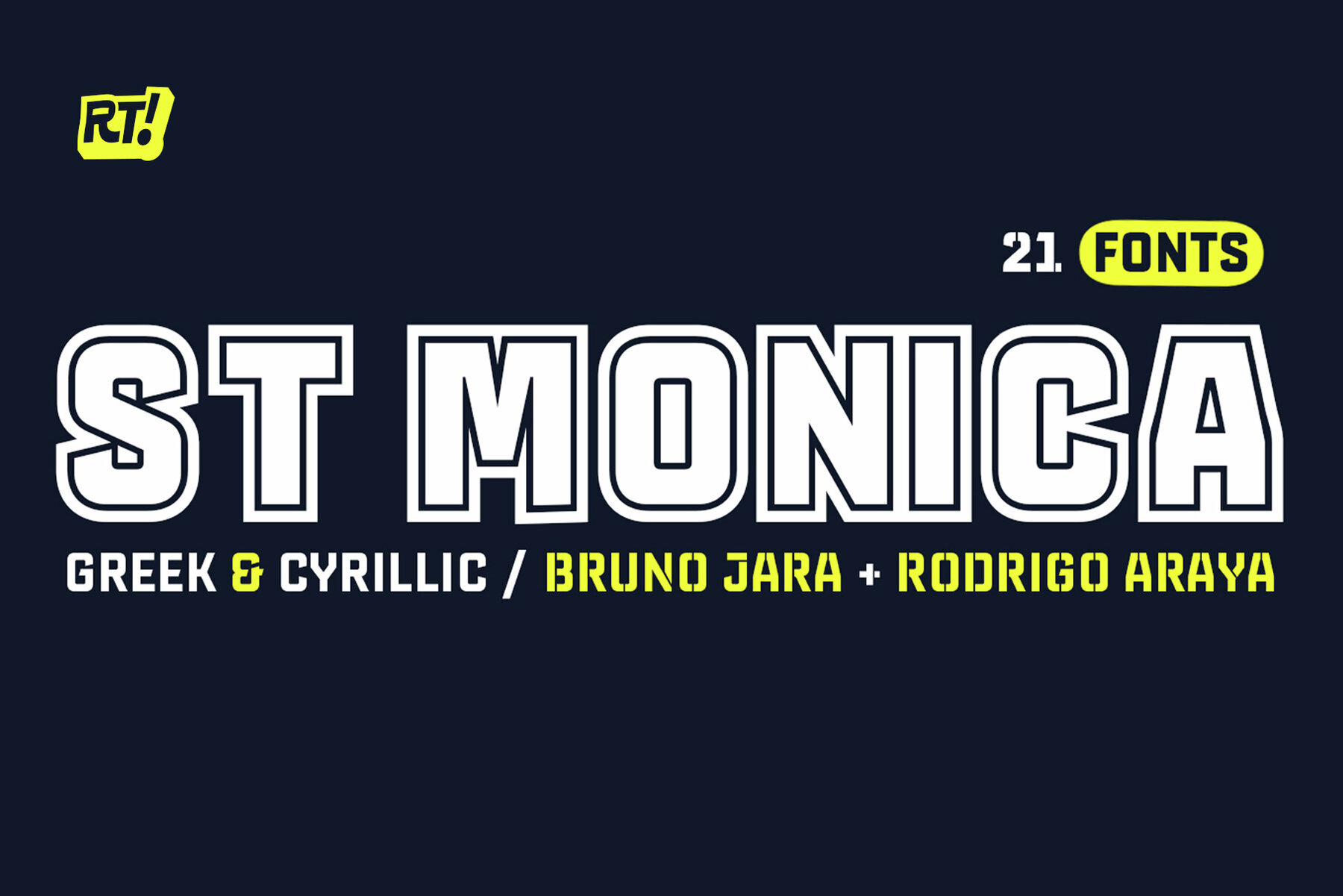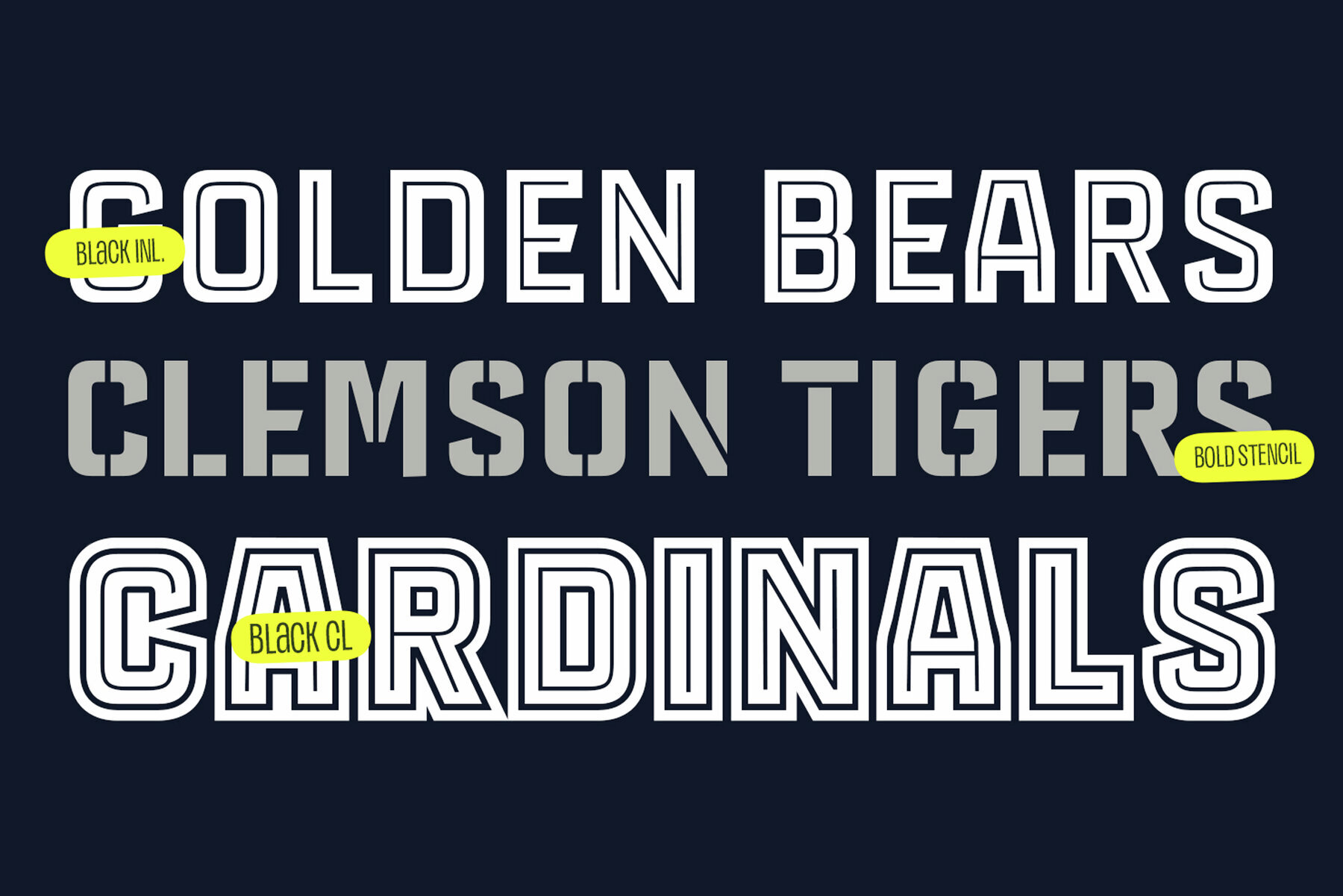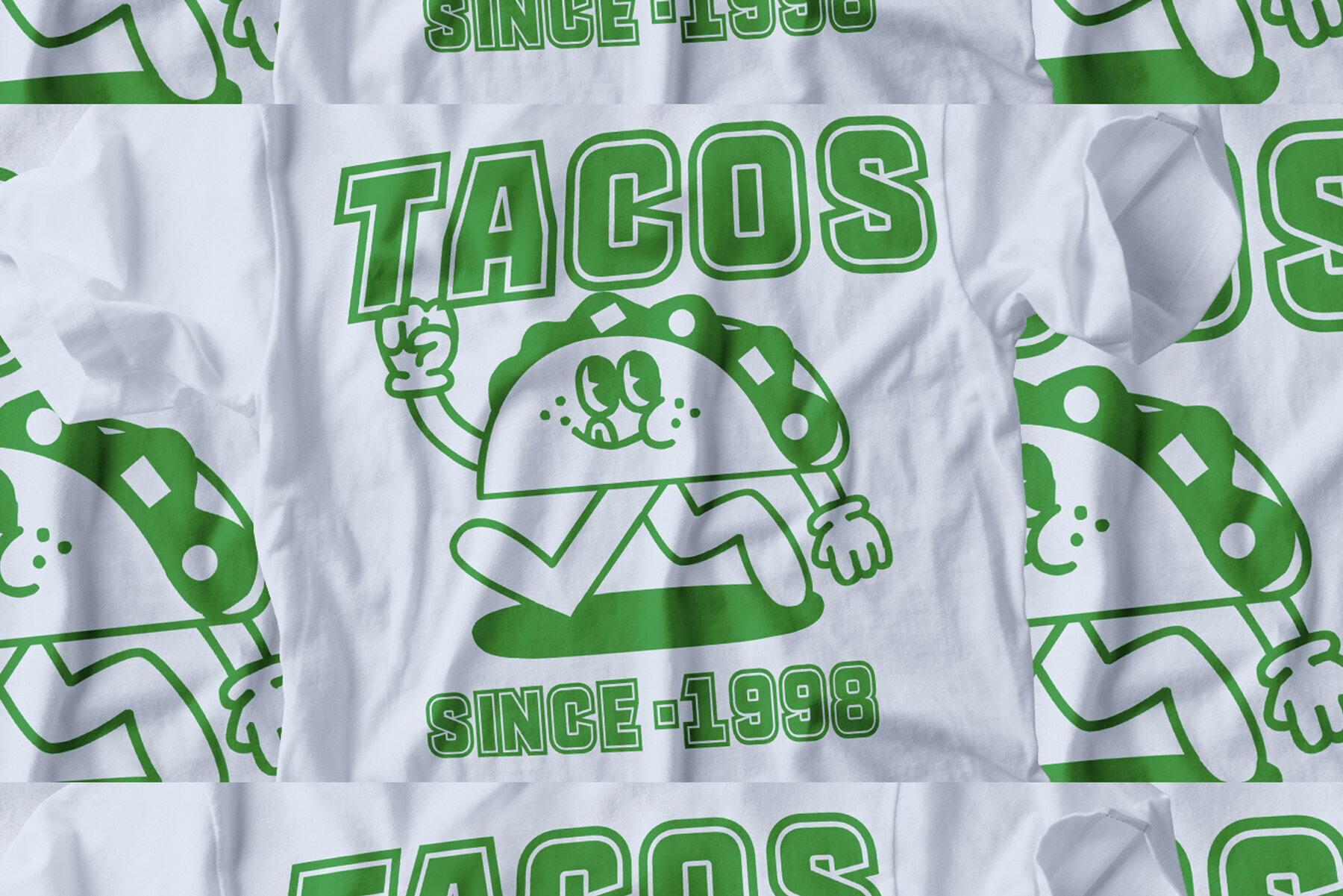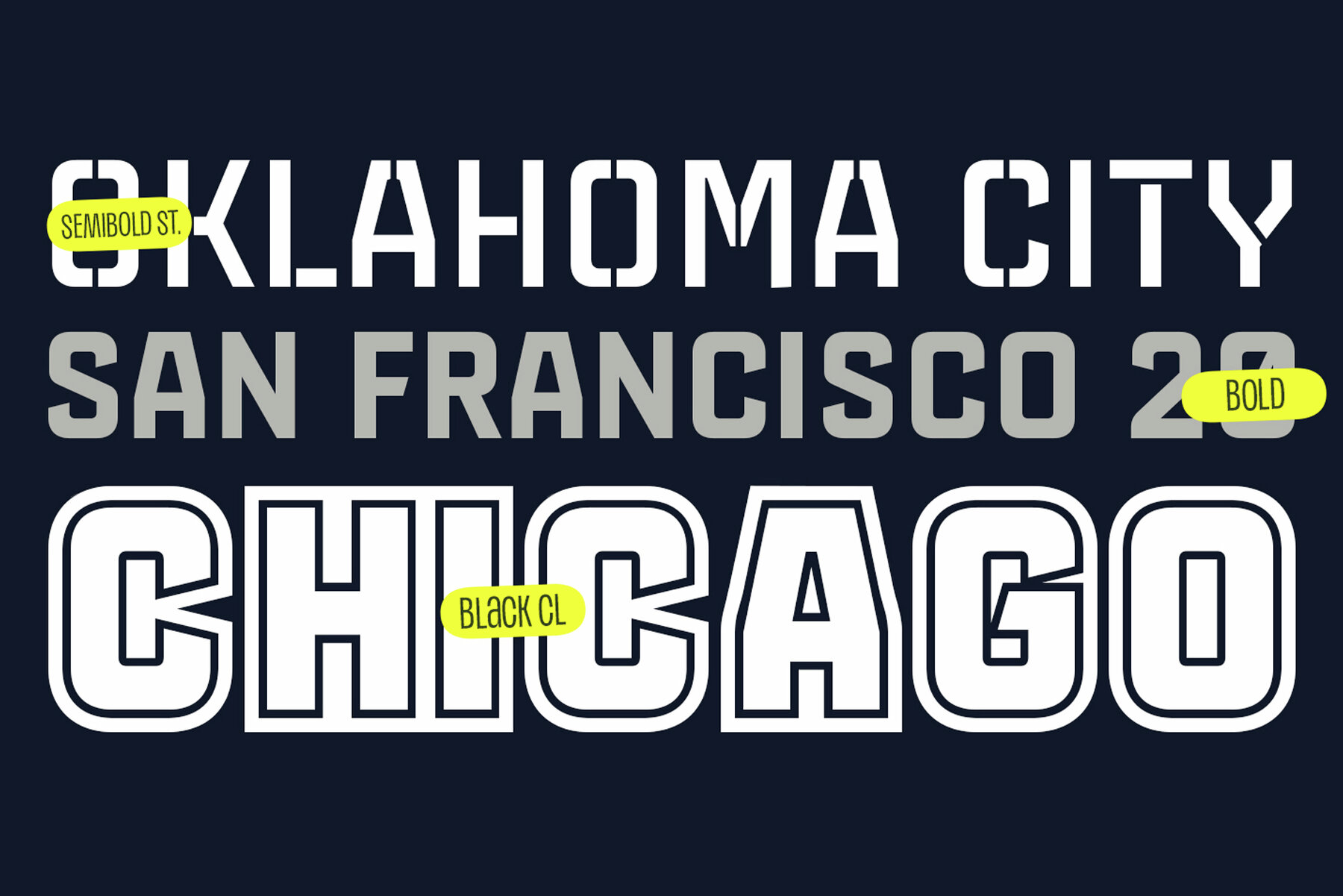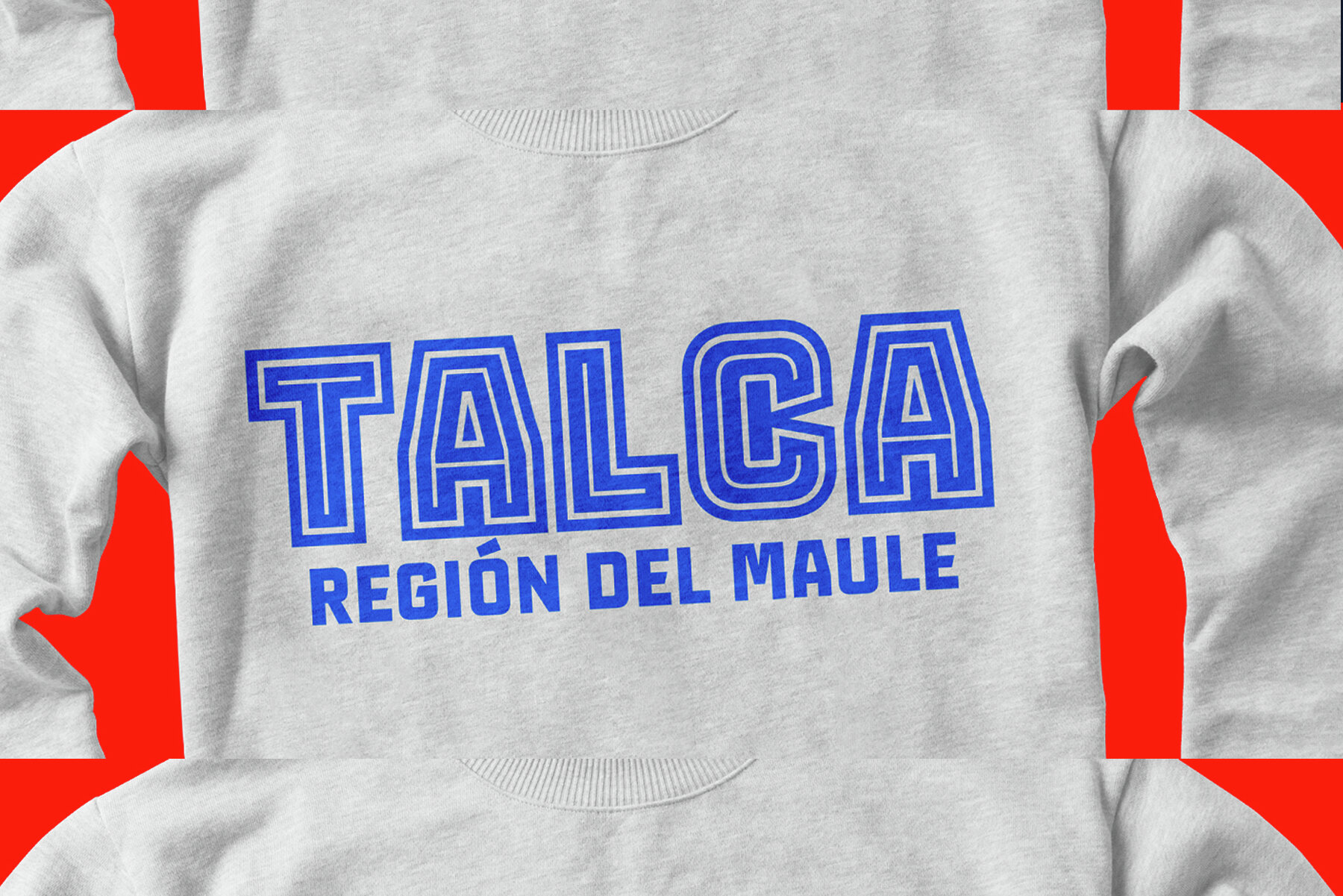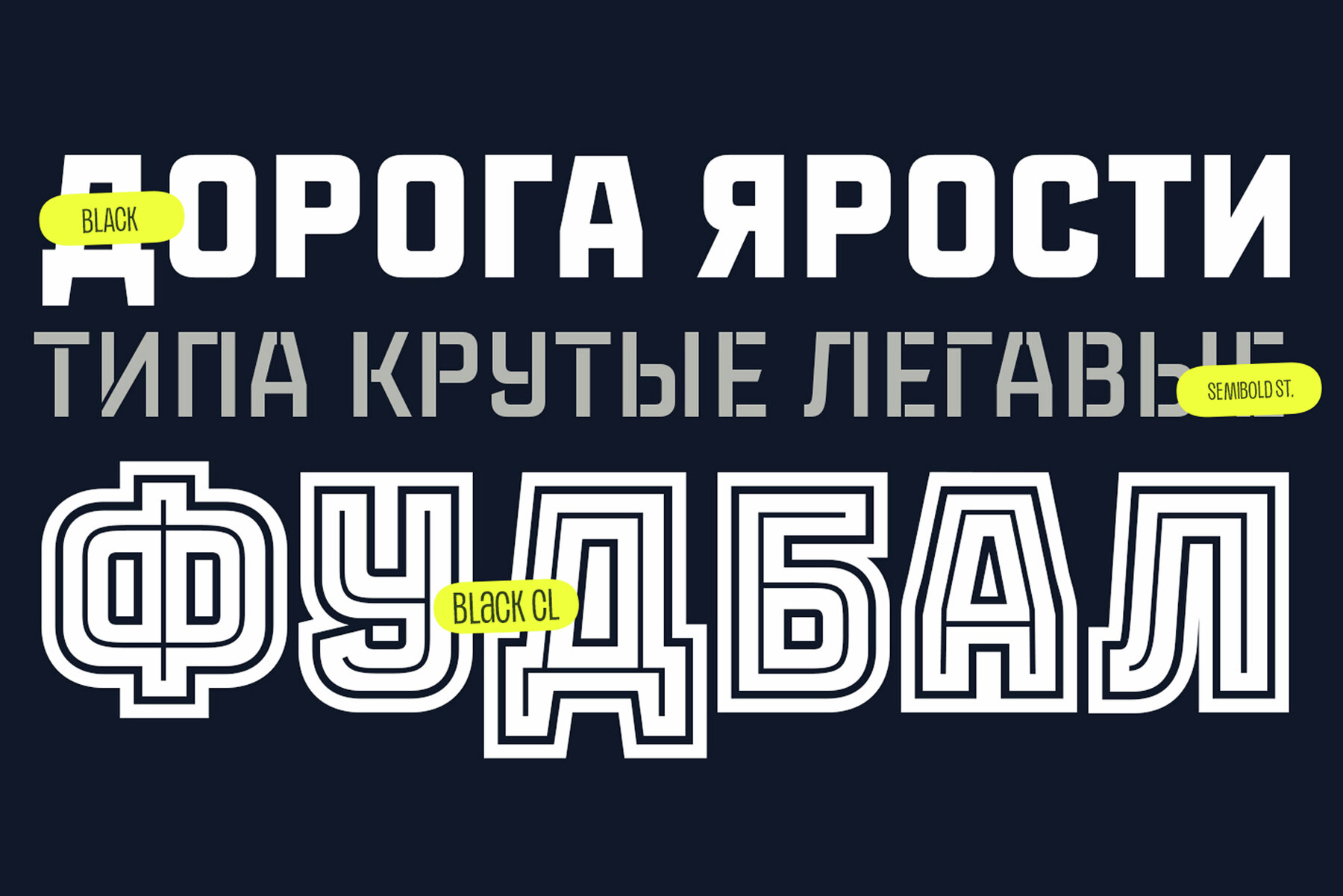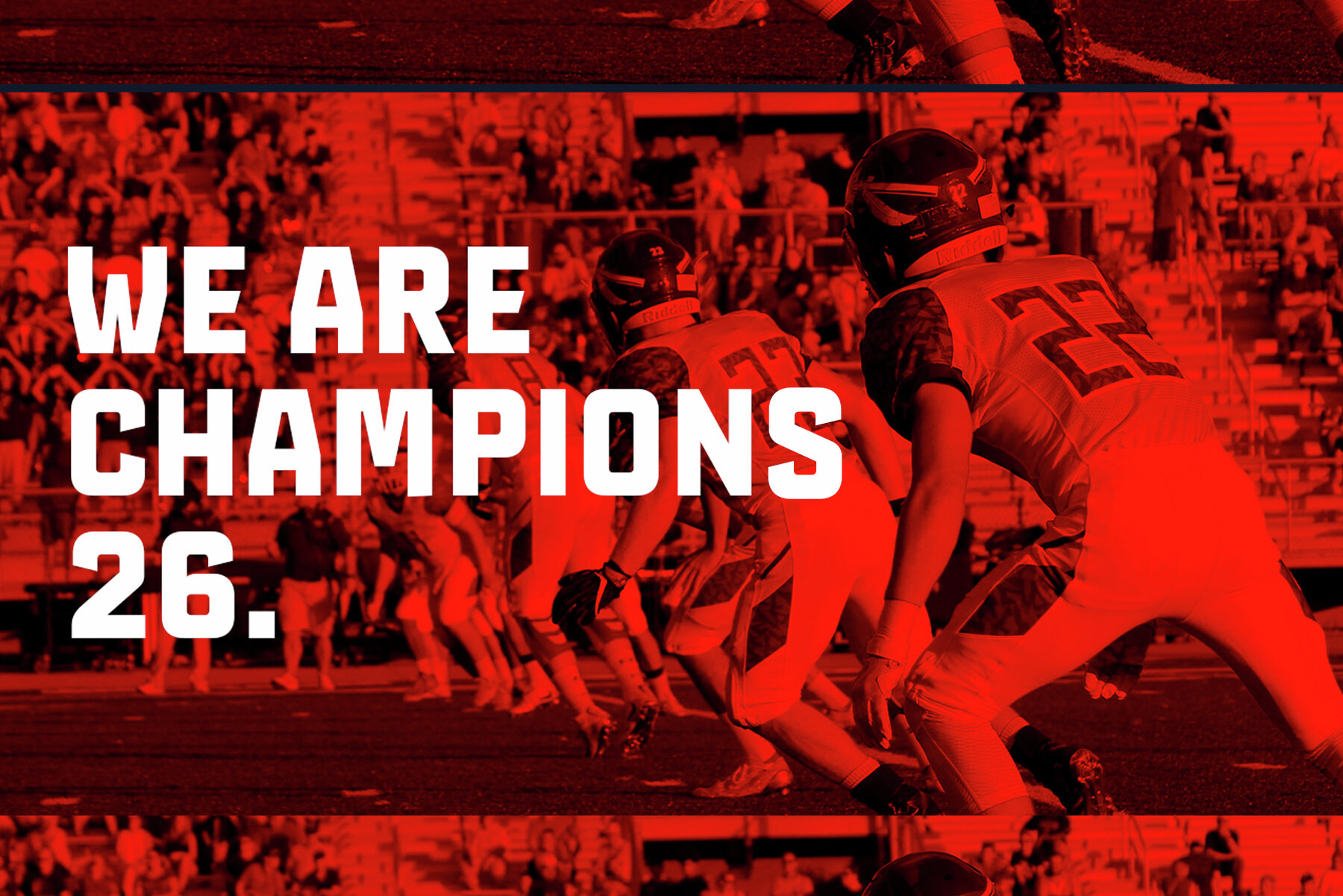
ST MONICA Font
St. Monica is a versatile 21-font family designed to make your headlines, posters, and themes come alive with boldness. Its robust and energetic style is particularly suited for projects centered on extreme action or sports. This comprehensive typeface supports both the Cyrillic and Greek alphabets, making it an ideal choice for multilingual design contexts.St. Monica: Dynamic Font Family for Impactful Design